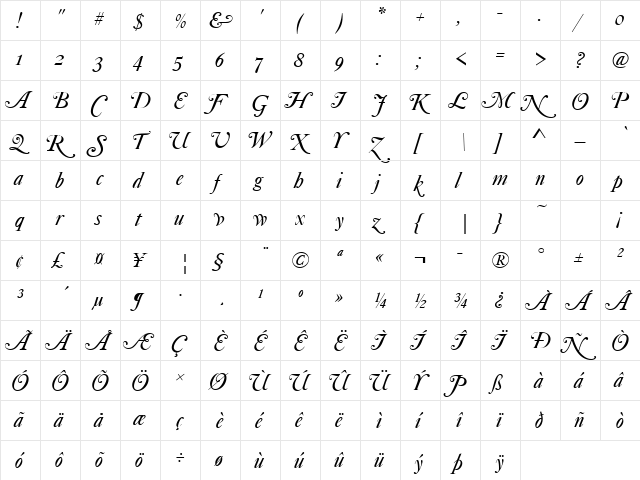
Caslon Becker No540 Swash Italic
Design Context for Caslon Becker No540 Swash Typeface
Caslon Becker No540 Swash flows with the natural rhythm of handwritten lettering, making it ideal for designs that call for warmth and personal expression.
Font Pairing: Combine Caslon Becker No540 Swash with a simple geometric sans for maximum contrast — the tension between flowing curves and clean structure is a classic typographic pairing.
Pro Tip: Pair Caslon Becker No540 Swash with a clean sans-serif for supporting text. The contrast between fluid script and geometric structure creates an elegant typographic hierarchy.